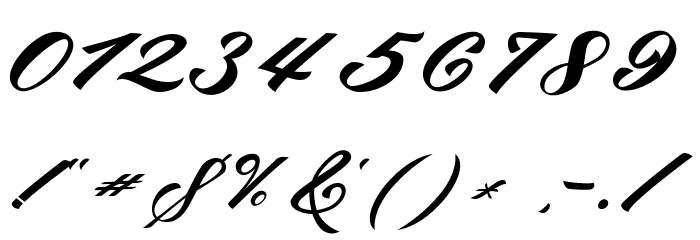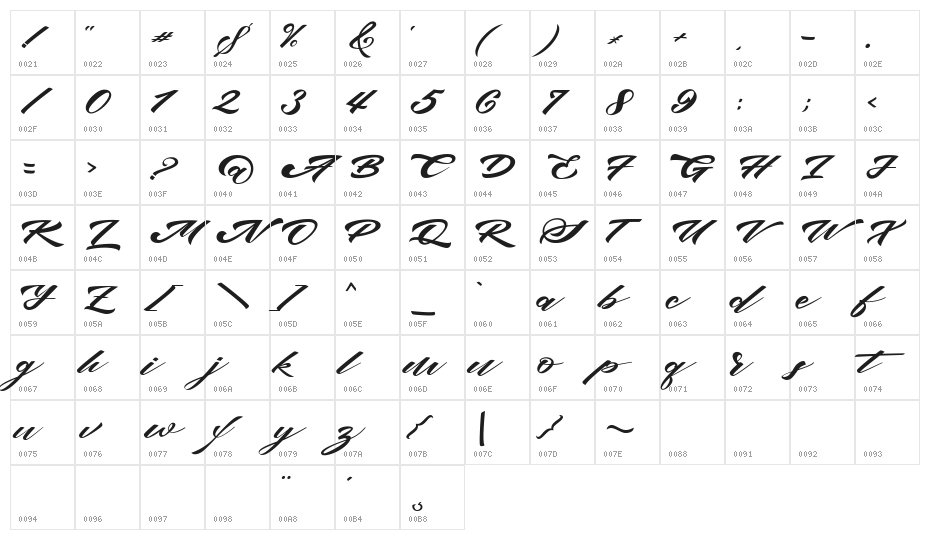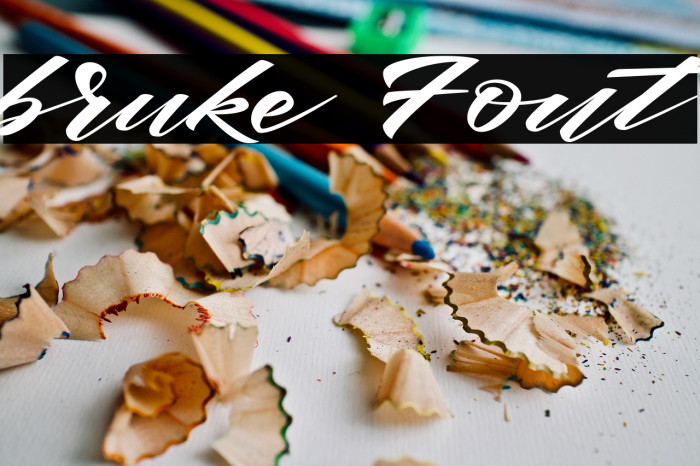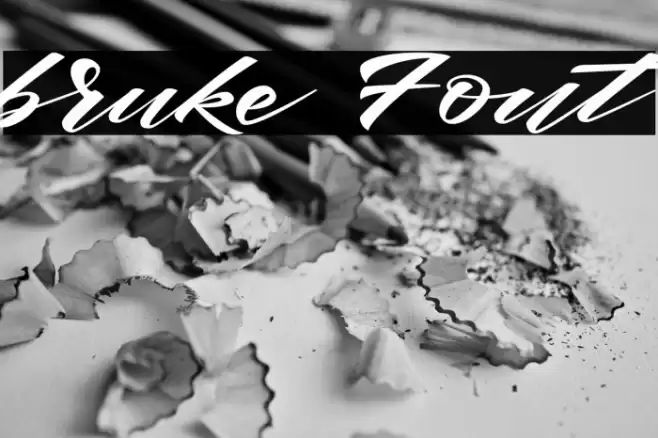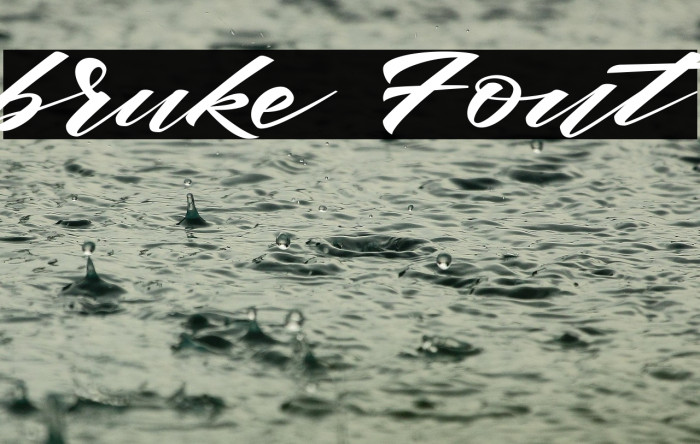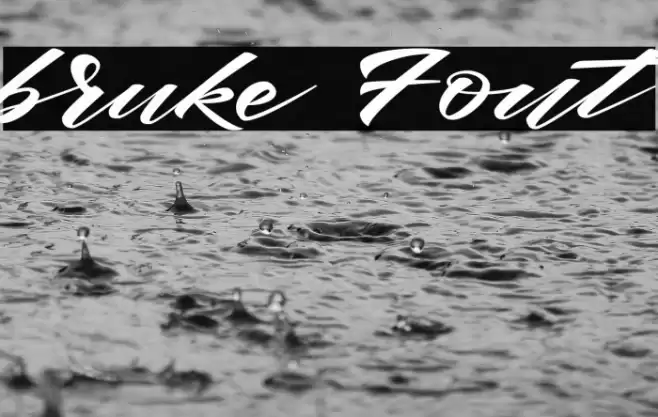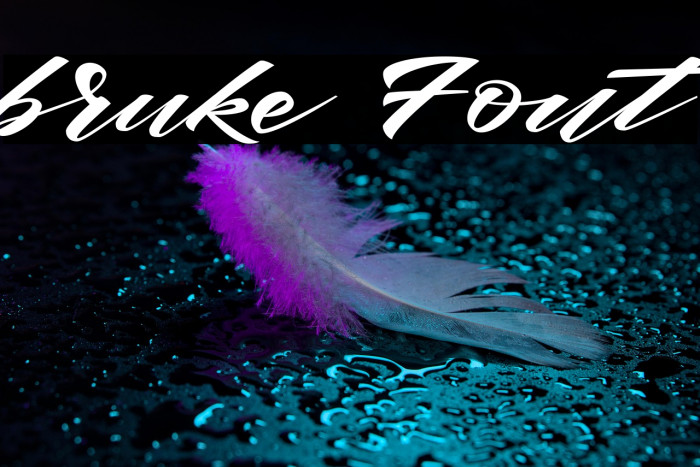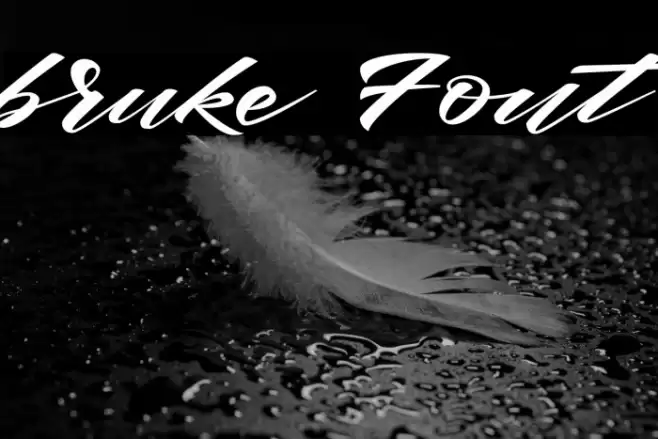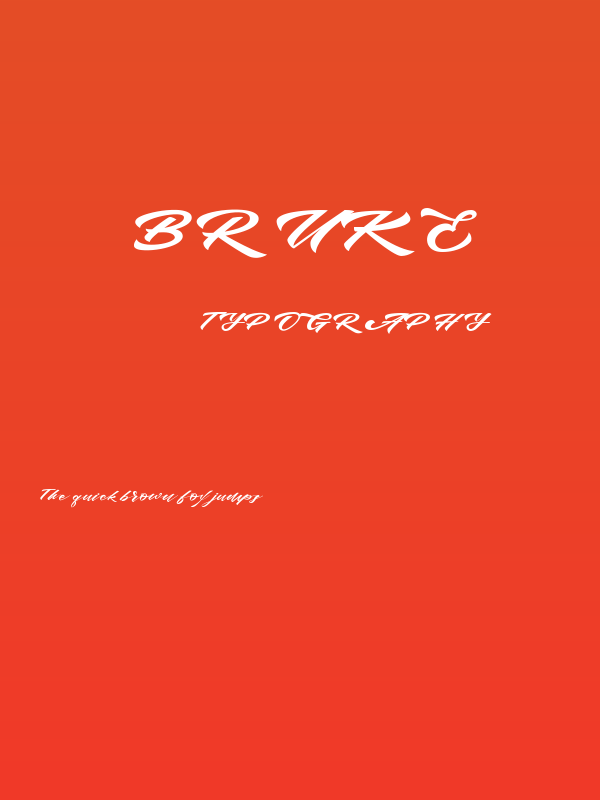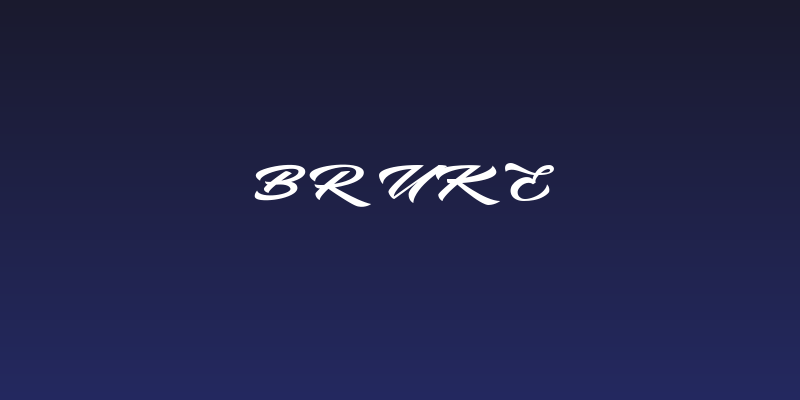
bruke Font
bruke Description
This font features an elegant and flowing script style, characterized by its smooth, cursive letterforms. The strokes are bold and sweeping, giving a sense of fluidity and grace. Each character is distinct, with a slight slant that adds to the dynamic appearance. The uppercase letters are ornate, with intricate loops and flourishes, while the lowercase letters maintain a consistent, connected flow. The numerals are equally stylish, matching the overall aesthetic of the alphabet. Special characters are designed with the same attention to detail, ensuring a cohesive look across all glyphs.
| Use Case | Logos, Invitations, Decorative Text |
| Proposed Projects | Ideal for wedding invitations, elegant branding, greeting cards, and decorative signage. |